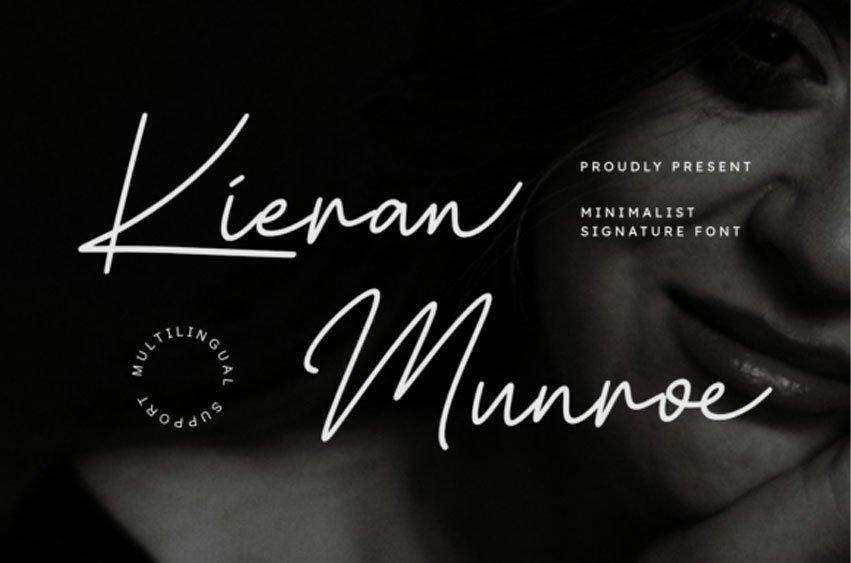
Kieran Munroe Font
Kieran Munroe Font is a beautiful and elegant minimalist signature font designed for impactful and intimate typography. With its refined structure and natural monoline flow, this font is perfect for chic branding, photography watermarks, luxury logos, and modern lifestyle designs.
Its clean and sophisticated design gives your visuals a striking, professional, and heartfelt look. Provided in OTF and TTF formats with multilingual support for maximum compatibility across all design platforms.